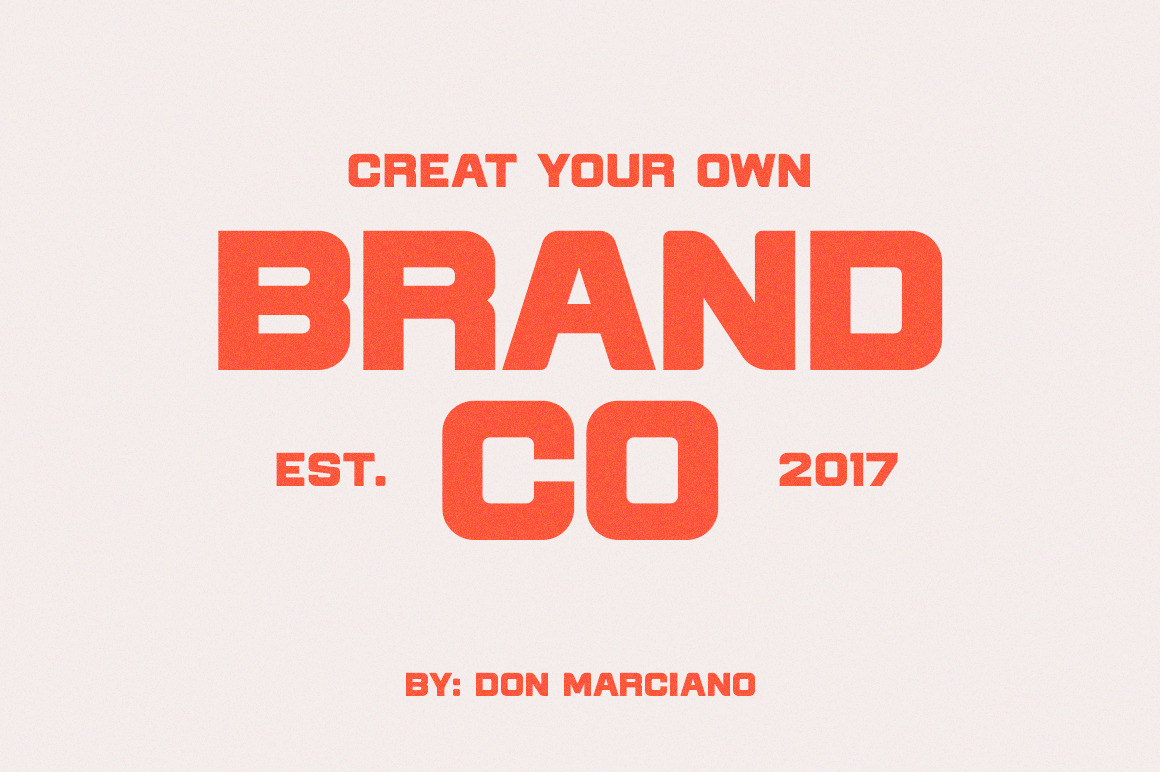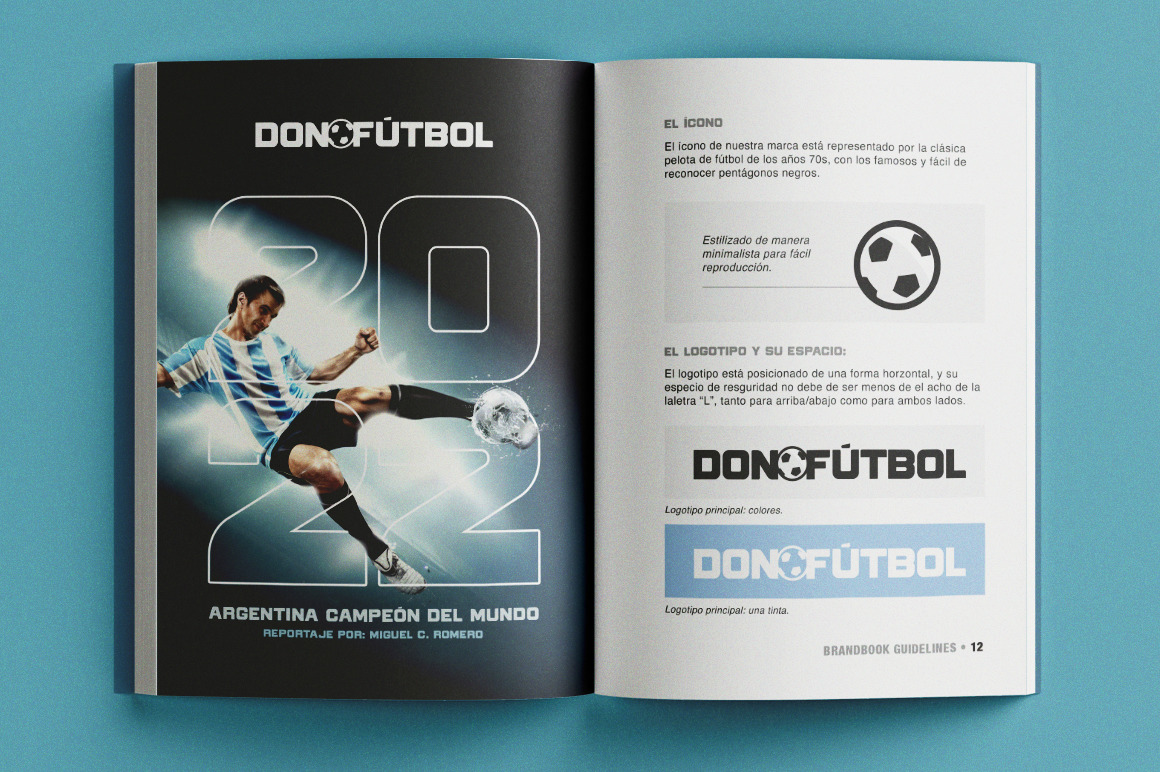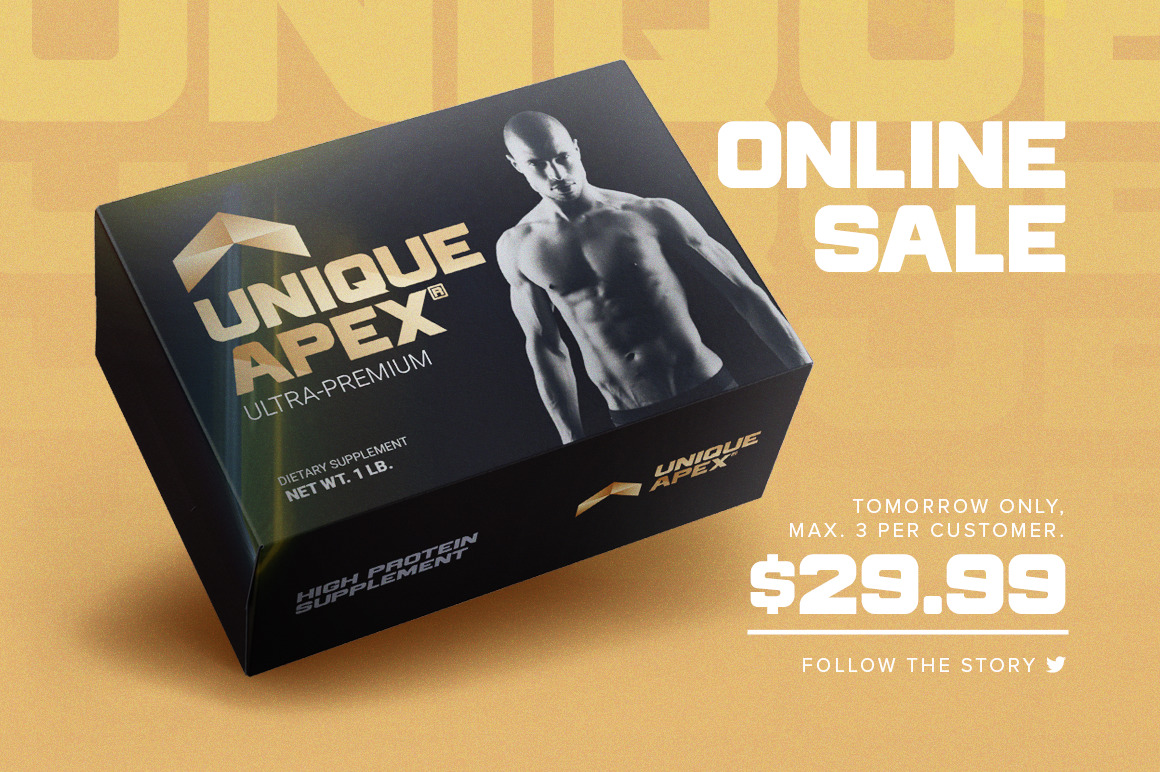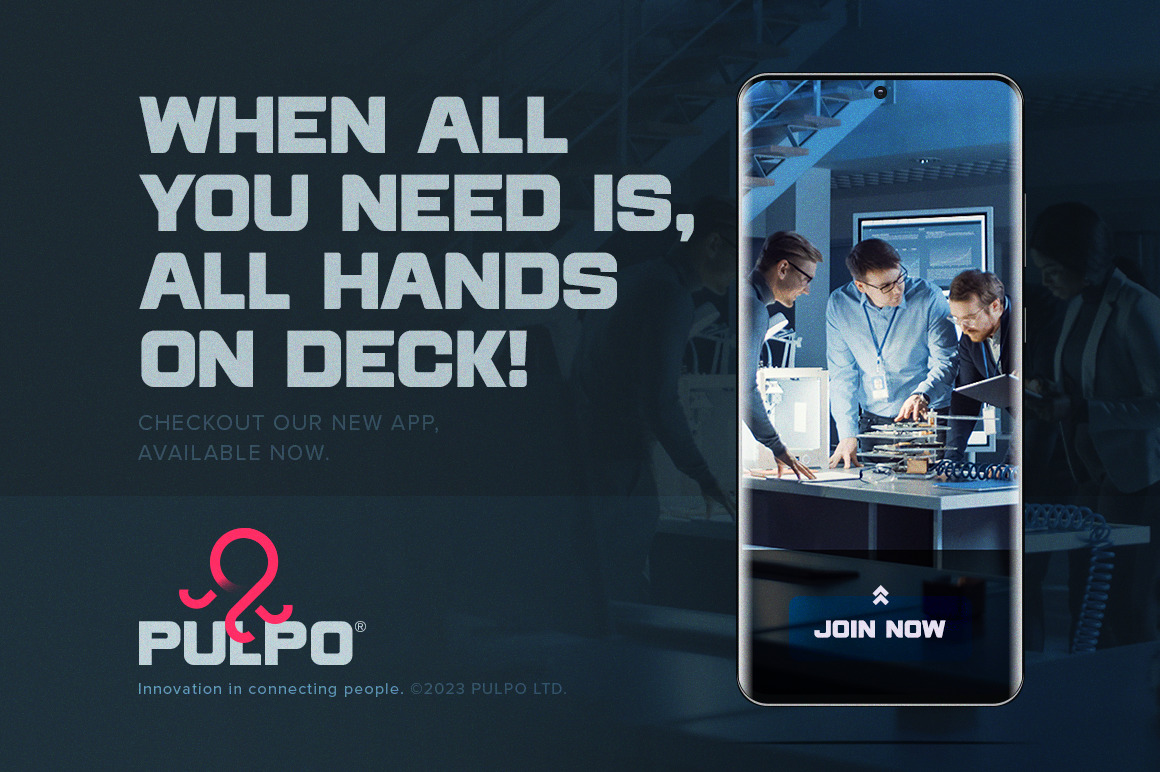
Brandco Font
Brandco is a brand-oriented font, design specifically for creating an impact with short strong names, with its clean and curvy details Brandco delivers the range to the never-ending search for greatness in the design industry; where the work hours are long and stretch well into the night, comes a font that simplifies the artist intentions and abides by the eight seconds rule of communication.